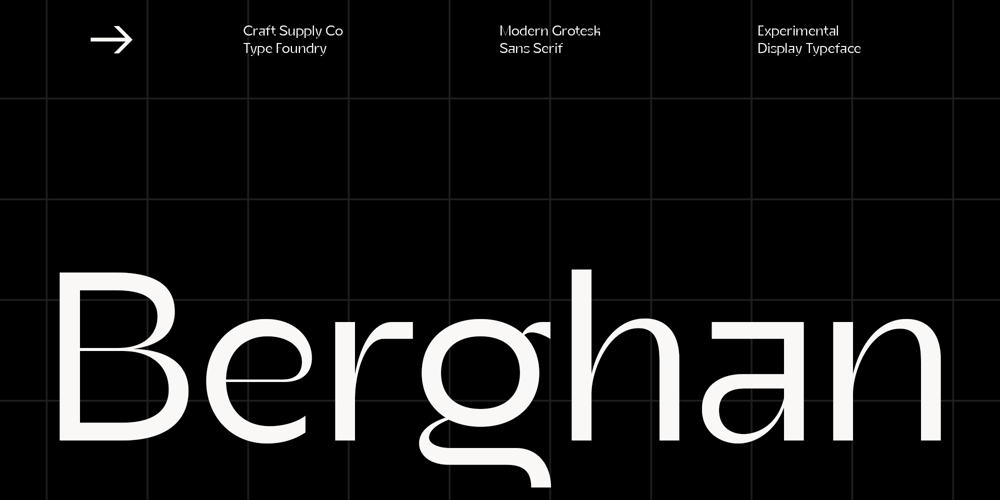
Berghan
Berghan font
Berghan Font Family was designed by Wahyu Hadi Yuana and published by Craft Supply Co. Berghan contains 1 styles and family package options. Berghan is a modern grotesk sans serif features thick and thin contrast details for contemporary nuances. It can be used to create almost all types of design projects like print materials. Just use your imagination and your project will become more alive and look great than ever with this typeface.You want to make a greeting card or a package design, or even a brand identity, craft design, any DIY project, book title, wedding font, pop vintage design, retro design or any purpose to make your art / design project look pretty and trendy? Feel free to play with this typeface!